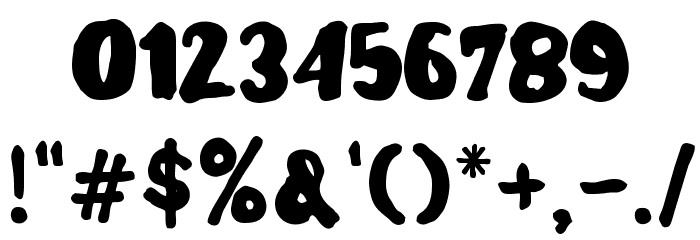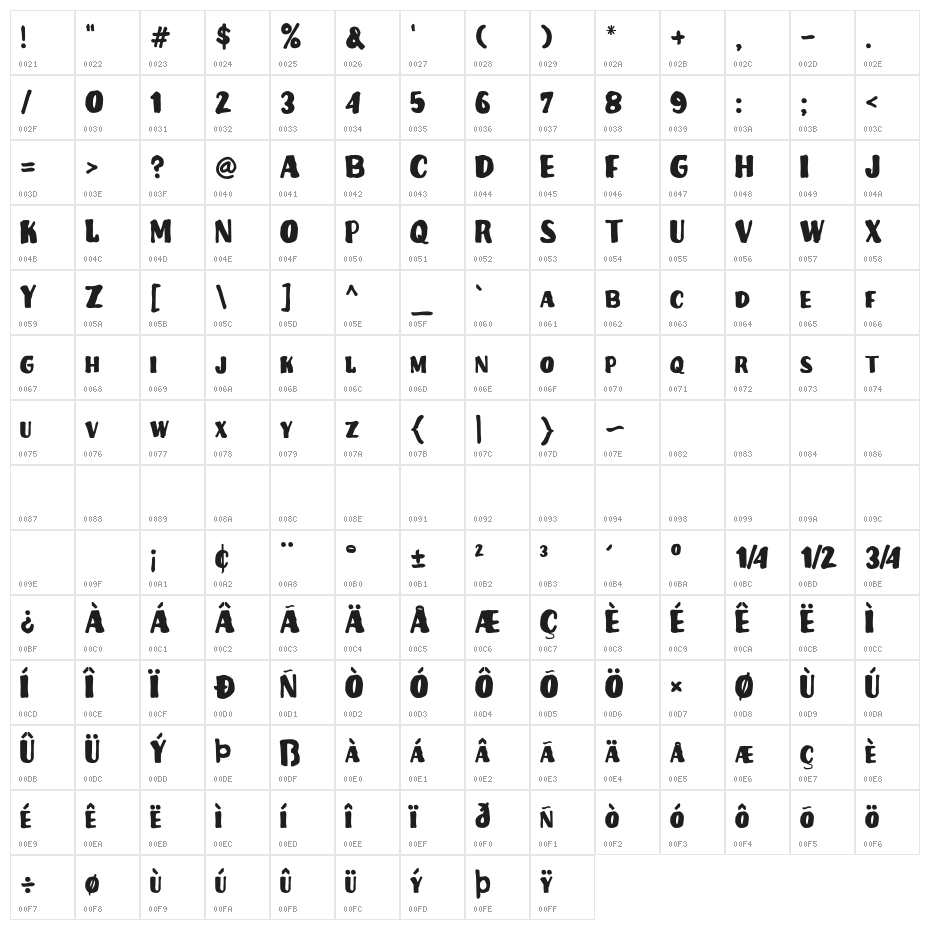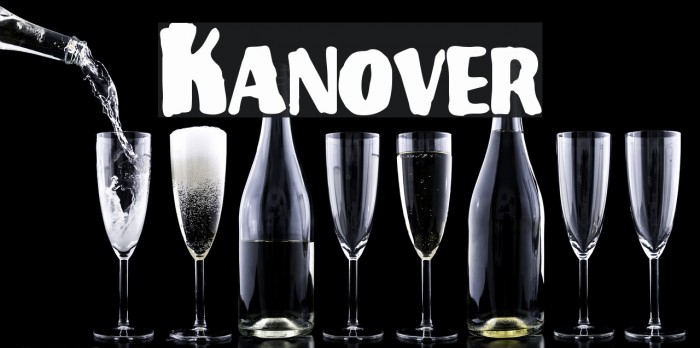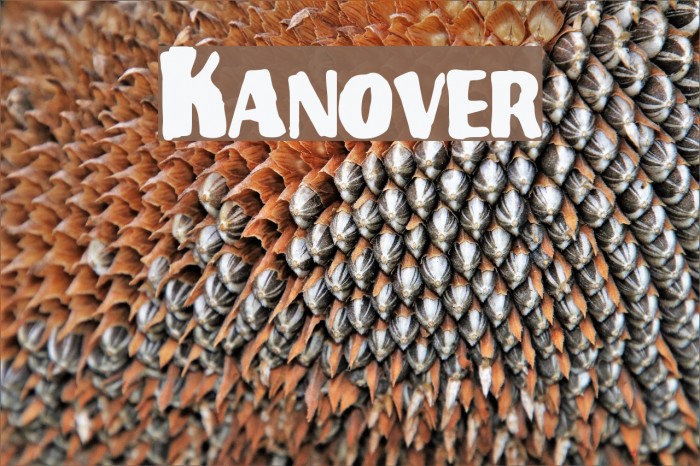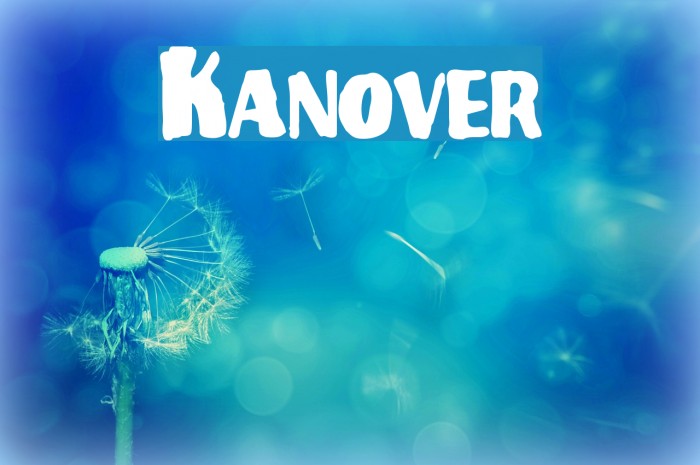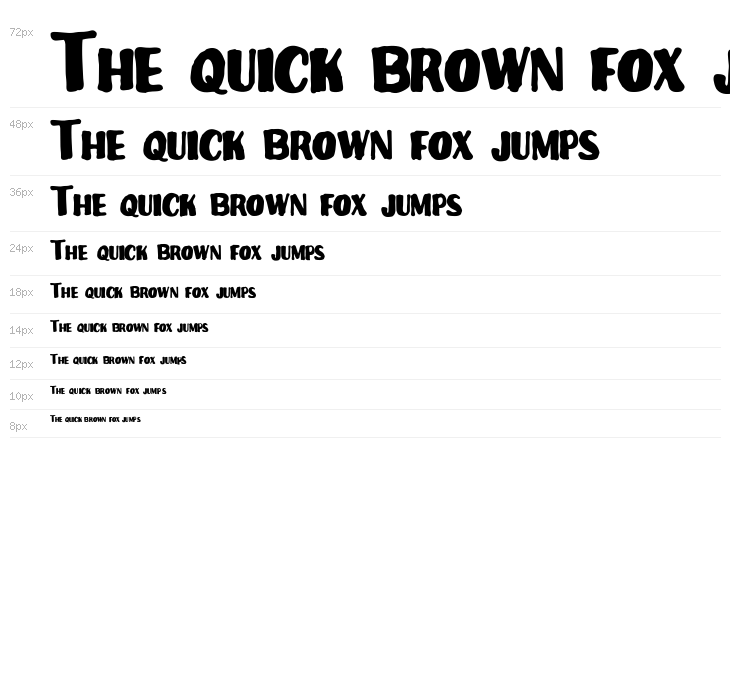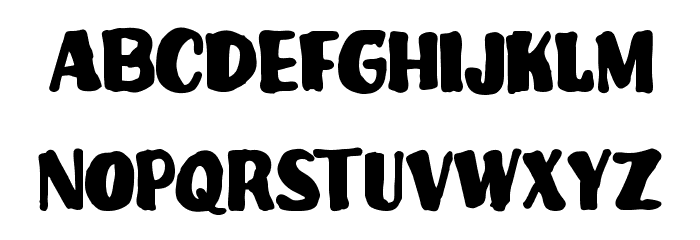
Kanover Font
Kanover Description
This font features a bold and playful design with thick, rounded strokes that give it a friendly and approachable appearance. The characters are slightly irregular, adding a hand-drawn feel that enhances its charm. The uppercase and lowercase letters maintain a consistent style, with a slight slant that suggests movement and energy. The numbers and special characters are equally bold, ensuring readability and visual impact. This font's unique style makes it stand out, making it suitable for creative and informal projects.
| Overall Style | Playful, Hand-drawn |
| Proposed Projects | Ideal for children's books, playful branding, posters, and creative projects. |